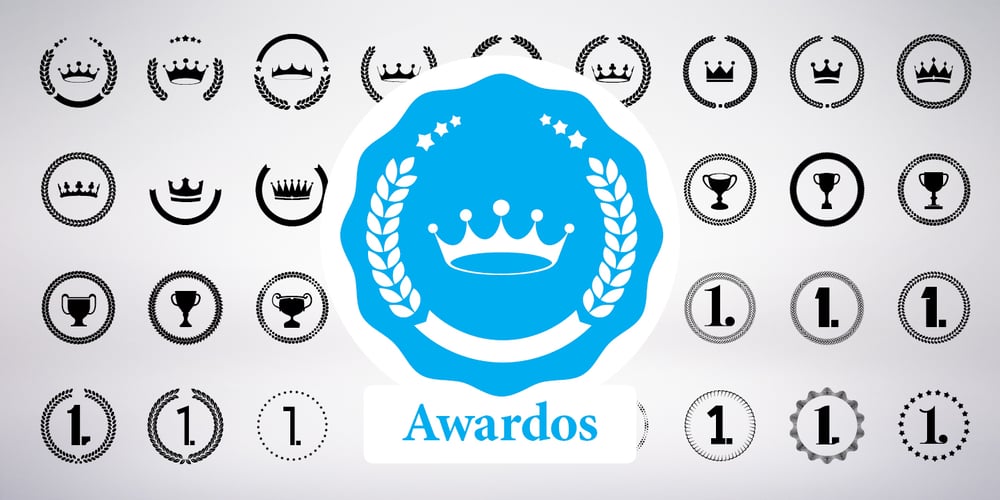
Awardos Font Family was designed by Vaclav Krejci and published by upirTYPO. Awardos contains 2 styles and family package options. Awardos is a complete solution for awards, badges and all kind of certificates. This font allows to mix various borders, laurels and icons to create a very unique badges. To quickly create an unique badge, type any number, any uppercase character and any lowercase character, for example 0Aa, 5Gk, 9Kl, 7Fr etc. To add starfield, start with a symbol (!”#$%&'()*+,). Glyphs included: 12x starfields – characters: ! ” # $ % & ‘ ( ) * + , 16x borders – characters: 0 1 2 3 4 5 6 7 8 9 : ; < = > ? 36x laurels and outer elements – characters: A B C D E F G H I J K L M N O P Q R S T U V W X Y Z À Á Â Ã Ã Ä Å Ç È É Ê 12x crown icons – characters: a b c d e f g h i j k l 12x cup icons – characters: m n o p q r s t u v w x 12x number one digits – characters: y z à á â ã ã ä å ç è é ê It is not required to use a symbol from every category. For example only laurel with crown icon can be used, or only starfield with the cup icon. Awardos Inverse is an inversed version. The outline borders are still included, used symbols are: [ ] ^ _ { | } ~ ¢ £ ¤ ¥ ¦ § €